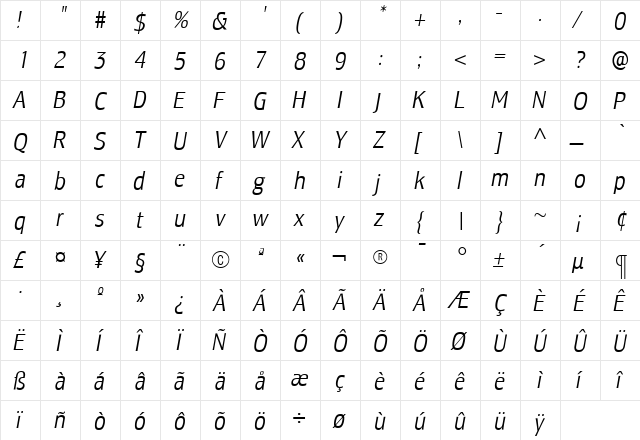
LesmoreLightCondensedItalic Roman Font Preview
Design Context for LesmoreLightCondensedItalic Typeface
LesmoreLightCondensedItalic takes a measured approach to typography — its balanced proportions and neutral character make it a reliable workhorse for both digital and print work. The dynamic lean of this cut emphasises speed and emphasis in any layout. The delicate stroke weight brings airiness and refinement to layouts. The condensed width makes it efficient for tight spaces without sacrificing legibility.